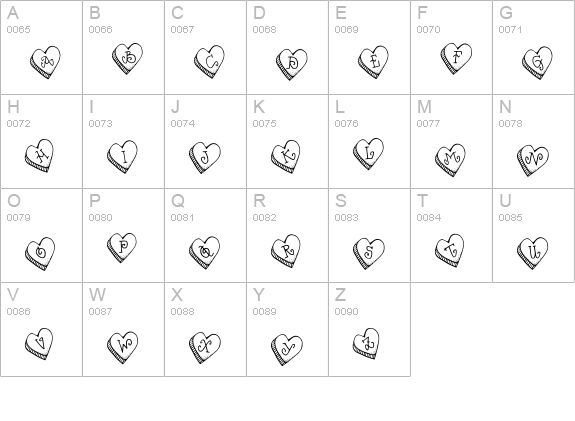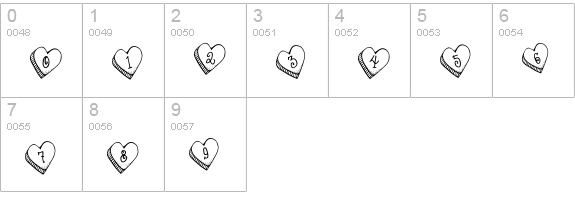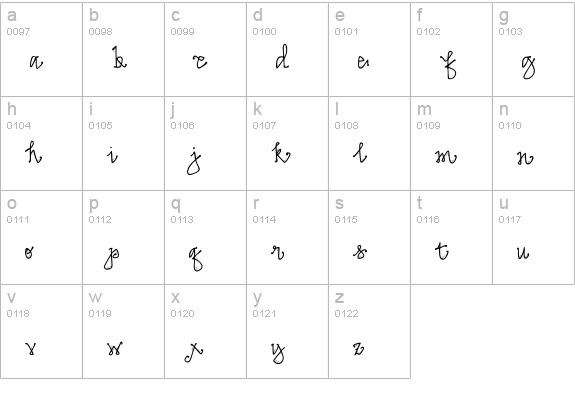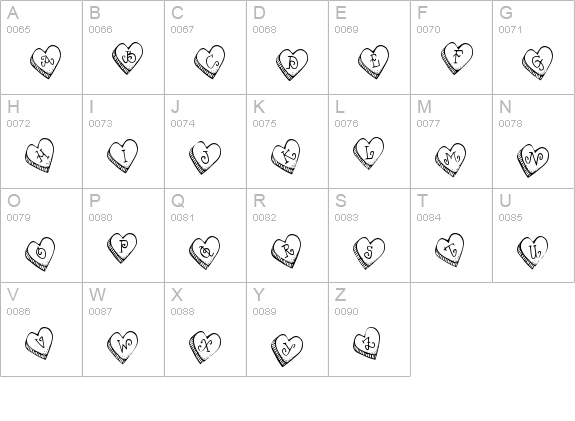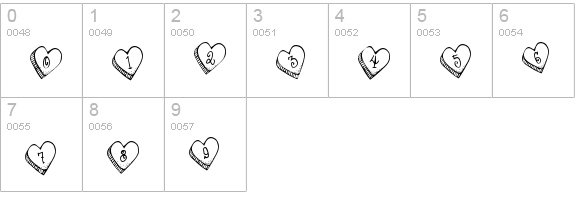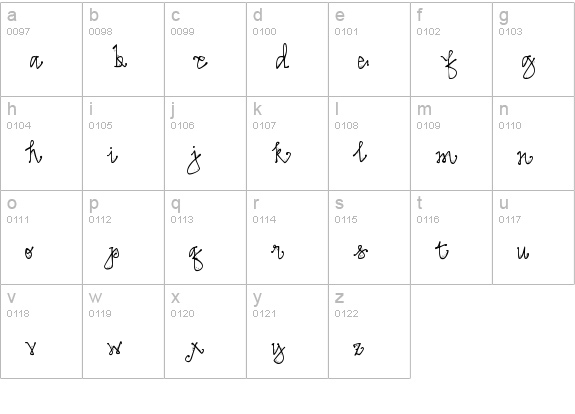
DJ Candy Heart Font Details
DJ Candy Heart font is a fun and playful typeface that brings a touch of sweetness to any design project. With its charming handwritten style and whimsical heart accents, this font is perfect for adding a touch of fun to invitations, greeting cards, posters, and more. The free-spirited nature of DJ Candy Heart font makes it ideal for projects that require a lighthearted and cheerful vibe. Best of all, DJ Candy Heart font is freely available to download at FontsMarket.com. Whether you're a designer looking to add a playful touch to your creations or simply someone who loves experimenting with different fonts, DJ Candy Heart is sure to delight and inspire. Download it today and let your creativity soar with this delightful and free-spirited typeface.